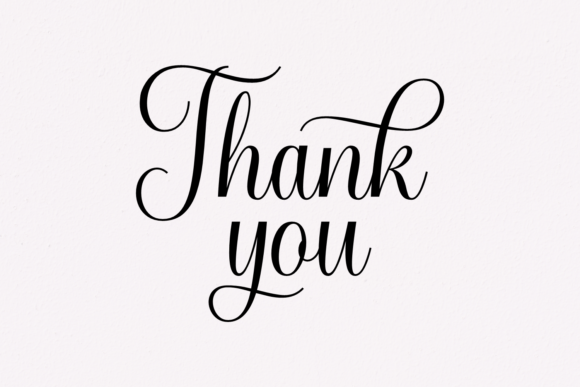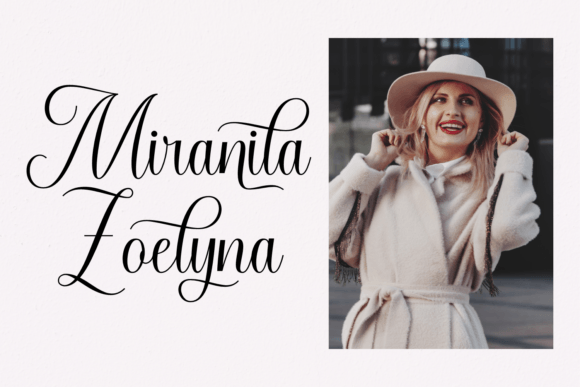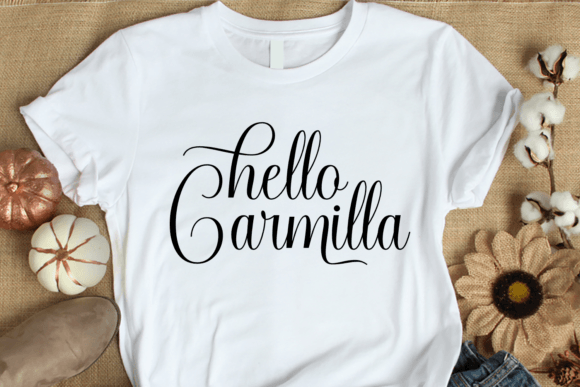
Introduction to Lumadye Font
Have you ever stared at a blank canvas, feeling the pressure to create something truly special for a client or a personal project? The blank page can be intimidating, but the right design resource can make all the difference. For designers seeking to elevate their work, the Lumadye Font is an exceptional choice.
This refined modern calligraphy font exudes elegance and sophistication, with its delicate curves and balanced strokes making it perfect for luxury branding, wedding invitations, logos, and high-end designs. Whether you’re working on a free download project or a commercial venture, the Lumadye Font is an excellent addition to your design arsenal. Its versatility and high quality make it a valuable asset for any creative project, allowing you to add a touch of timeless charm to your designs.
With its transparent background and seamless integration, the Lumadye Font is a design resource that will help you stand out from the crowd and leave a lasting impression on your audience.
Key Features of Lumadye Font
- Lumadye Font is a high-quality design resource ideal for creative projects requiring a unique touch.
- Lumadye Font is available in a single size, making it versatile for use in a variety of applications.
- The font has a high resolution, ensuring crisp and clear display on both digital and print materials.
- Lumadye Font is a perfect addition to any design library, offering a unique and creative element for designers.
Honest Review: Lumadye Font
I recently had the chance to work with the Lumadye Font, and I must say it’s a great addition to any design resource library. This font is perfect for creative projects that require a touch of elegance and sophistication.
- High quality design that’s sure to make your project stand out
- Transparent background makes it easy to integrate with any design
- Excellent for use in logos, typography, and other design elements
- Only available in a limited number of font weights
- Not suitable for use in very large text sizes
- Some users may find the font to be a bit too minimalist
Tips for Getting the Most Out of Lumadye Font
To get the most out of the Lumadye Font, try using it in conjunction with other high-quality design resources. Experiment with different font sizes, colors, and arrangements to create unique and eye-catching designs.
The Lumadye Font is ideal for use in a range of creative projects, including logo design, infographics, and social media graphics. Its high-quality design and transparent background make it perfect for use in a variety of design contexts.